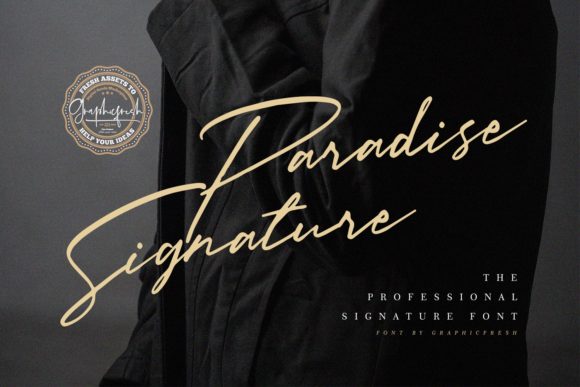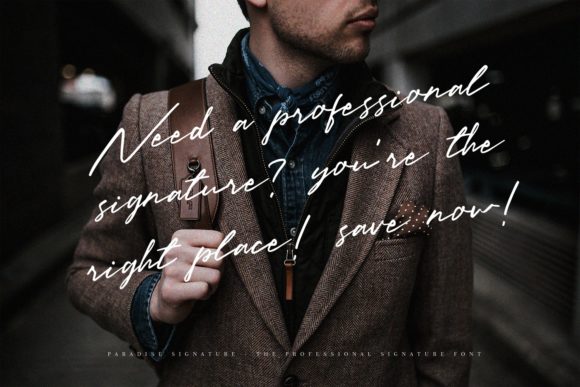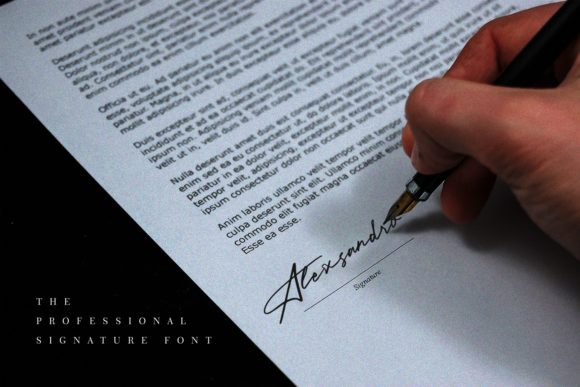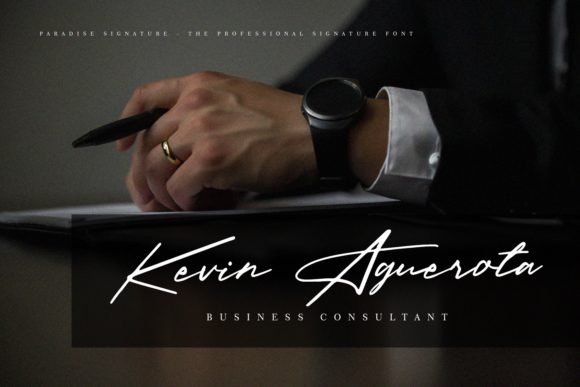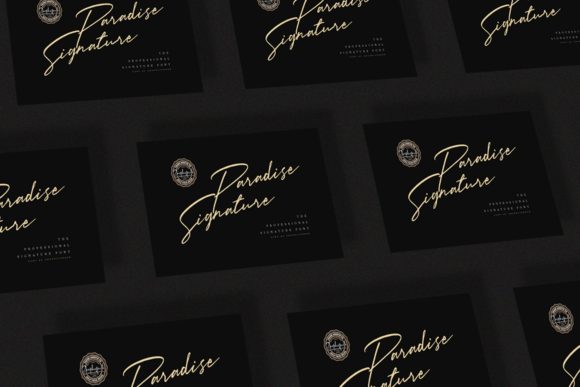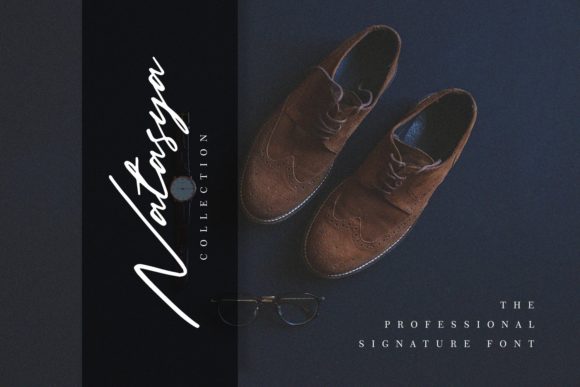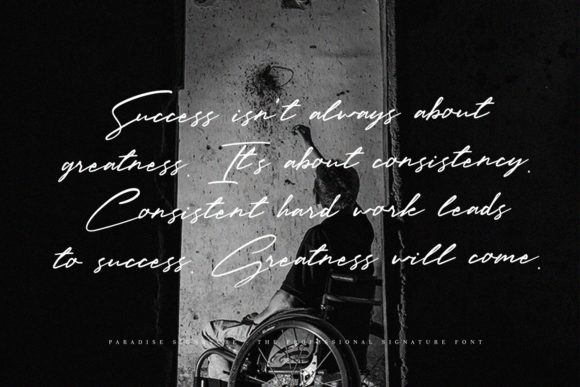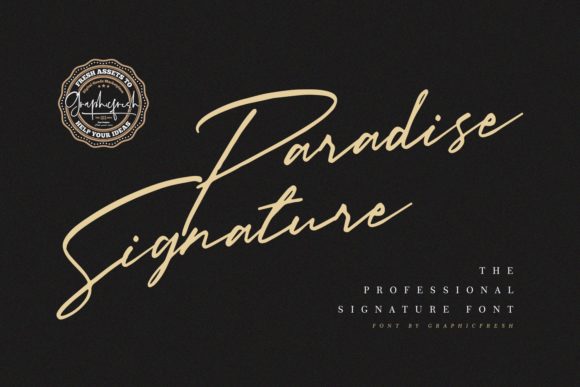
HomeScript FontsParadise Signature Font Script Fonts Paradise Signature Font FacebookXPinterestWhatsApp Paradise Signature Font Poster 2 Paradise Signature Font Poster 3 Paradise Signature Font Poster 4 Paradise Signature Font Poster 5 Paradise Signature Font Poster 6 Paradise Signature Font Poster 7 Paradise Signature Font Poster 8 About Paradise Signature Font Paradise Signature is a unique script font. It will add a delicate touch to any crafting project! DOWNLOAD NOW People also explored Saintine Font Dermaga Font Sunday Morning Font Christmas Snowflake Font Liwonder Font Brown Monogram Font Datonga Font Florina Font Blusty Duo Font 296 0 TagsParadise Signature Font Previous articleRobella FontNext articleCherry Pink Font LEAVE A REPLY Cancel reply Comment: Please enter your comment! Name:* Please enter your name here Email:* You have entered an incorrect email address! Please enter your email address here Website: Save my name, email, and website in this browser for the next time I comment. Personal Use Free Kellana Personal Use Free Read more about this font The Kingdom Personal Use Free Read more about this font Multicolore Personal Use Free Read more about this font Zojihun Personal Use Free Read more about this font BLOG Using Fonts in Digital Marketing: Tips to Strengthen Your Brand Identity In the realm of digital marketing, every visual element plays a crucial role in shaping a brand's identity, and fonts are no exception. The... Where to Buy American Fonts Online in 2024 Best Fonts for YouTube Videos: Make Your Thumbnails Stand Out How to Cut Any Font on Cricut: Convert a Font to SVG (Free)